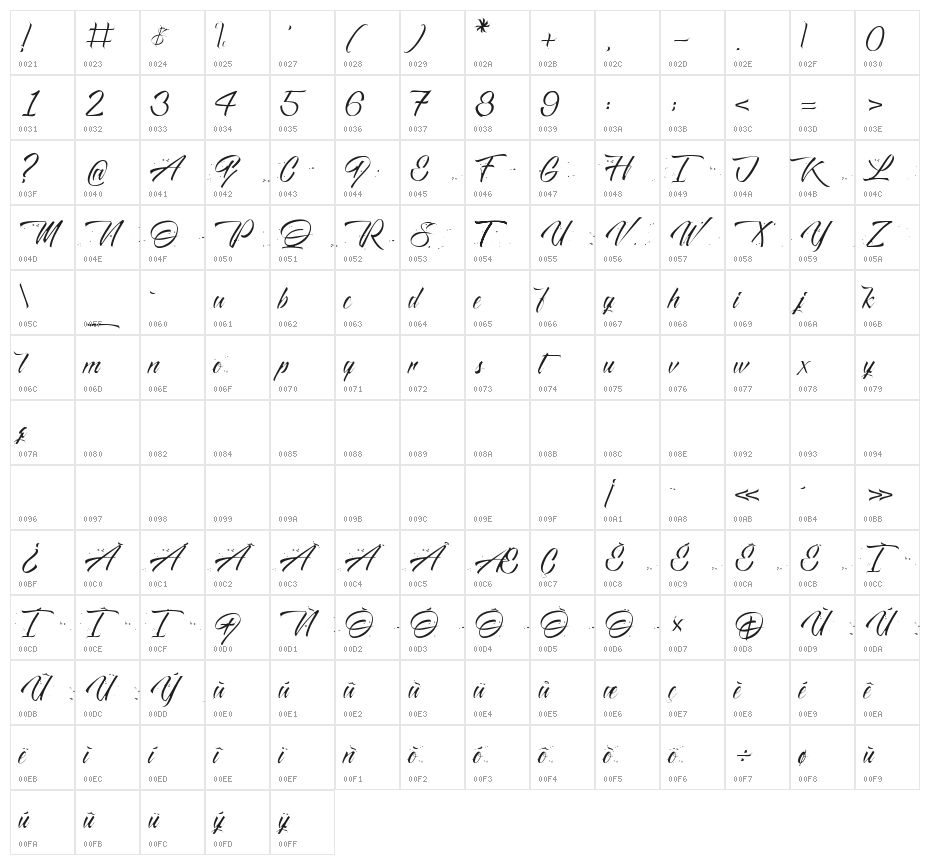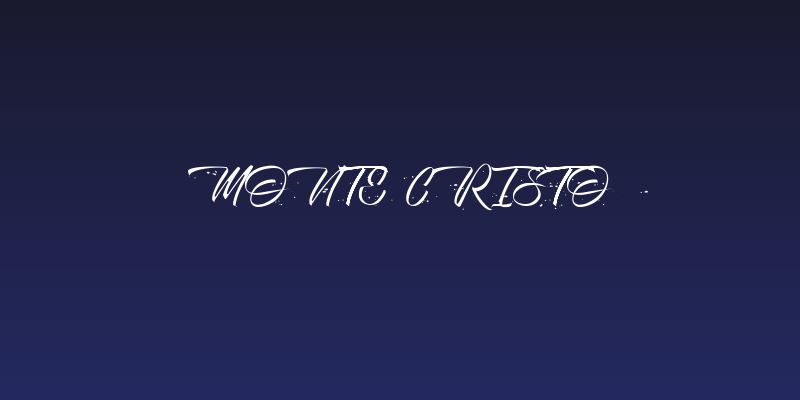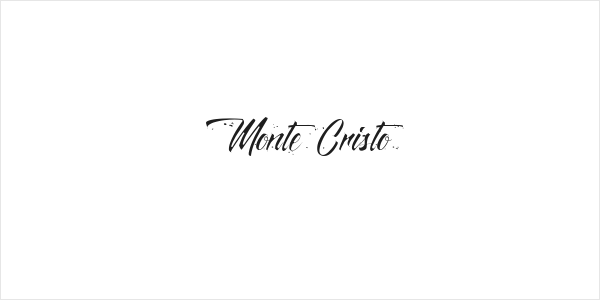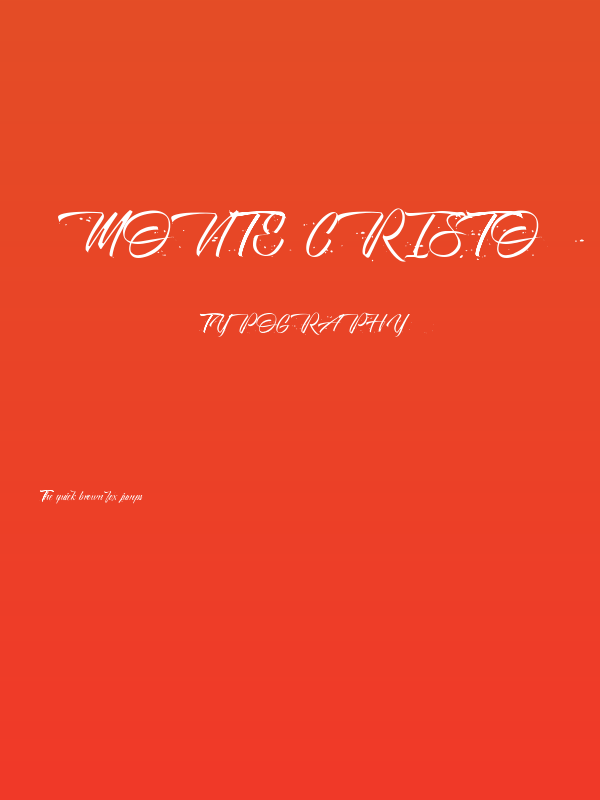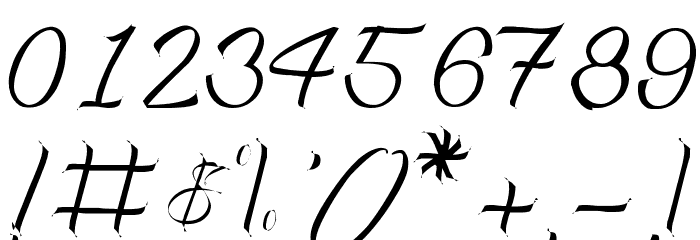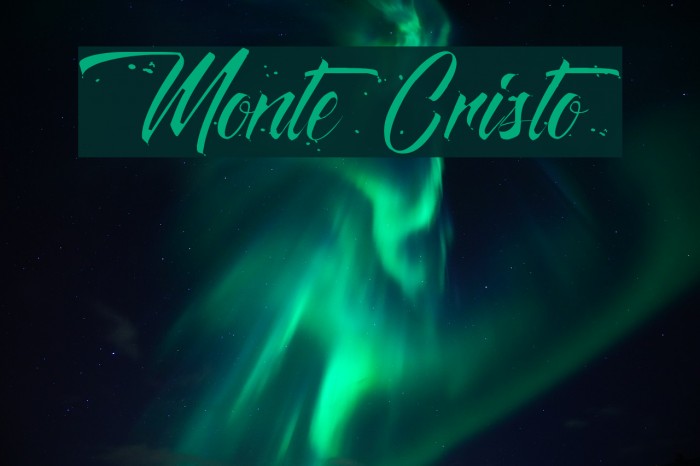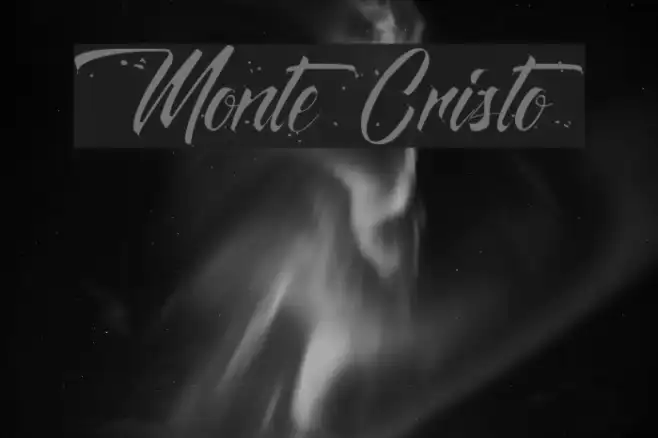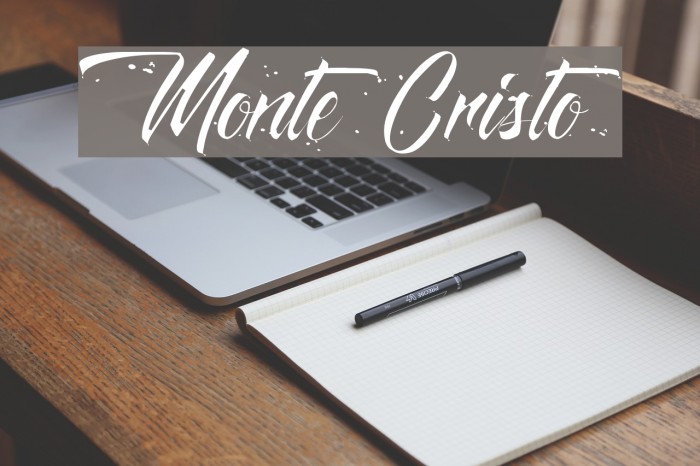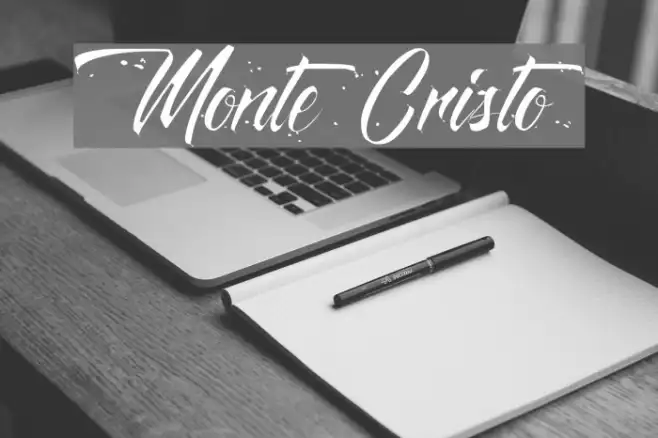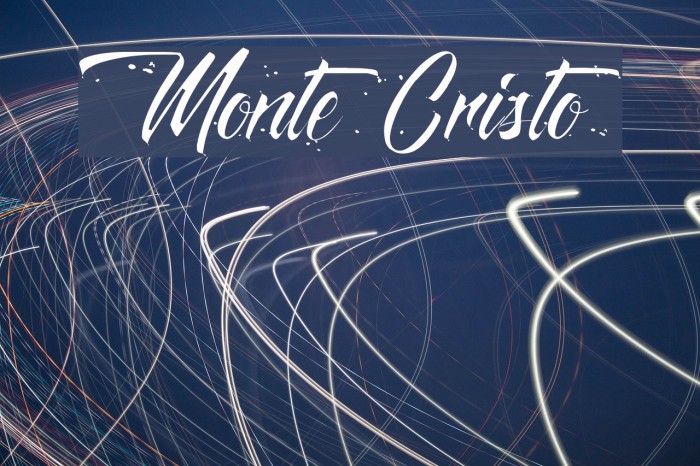
Monte Cristo Font
Monte Cristo Description
This font exudes a dynamic and expressive style, characterized by its fluid, cursive script that combines elegance with a touch of edginess. The uppercase letters are bold and sweeping, with intricate flourishes that add a sense of movement and drama. The lowercase letters maintain a consistent flow, enhancing readability while preserving the artistic flair. Numbers and special characters are crafted with the same attention to detail, ensuring a cohesive look across all elements. The font's unique texture, reminiscent of ink splatters, adds an additional layer of visual interest, making it stand out in any design context.
| Use Case | Logos, Headlines, Artistic designs |
| Proposed Projects | Ideal for branding projects, event invitations, artistic posters, and any design requiring a bold, creative touch. |